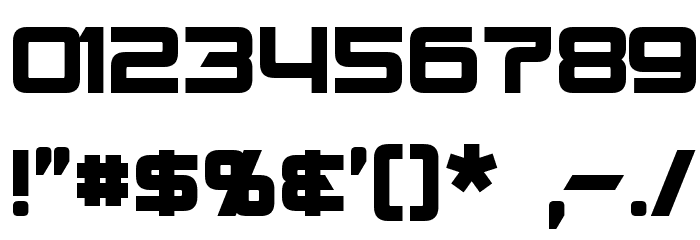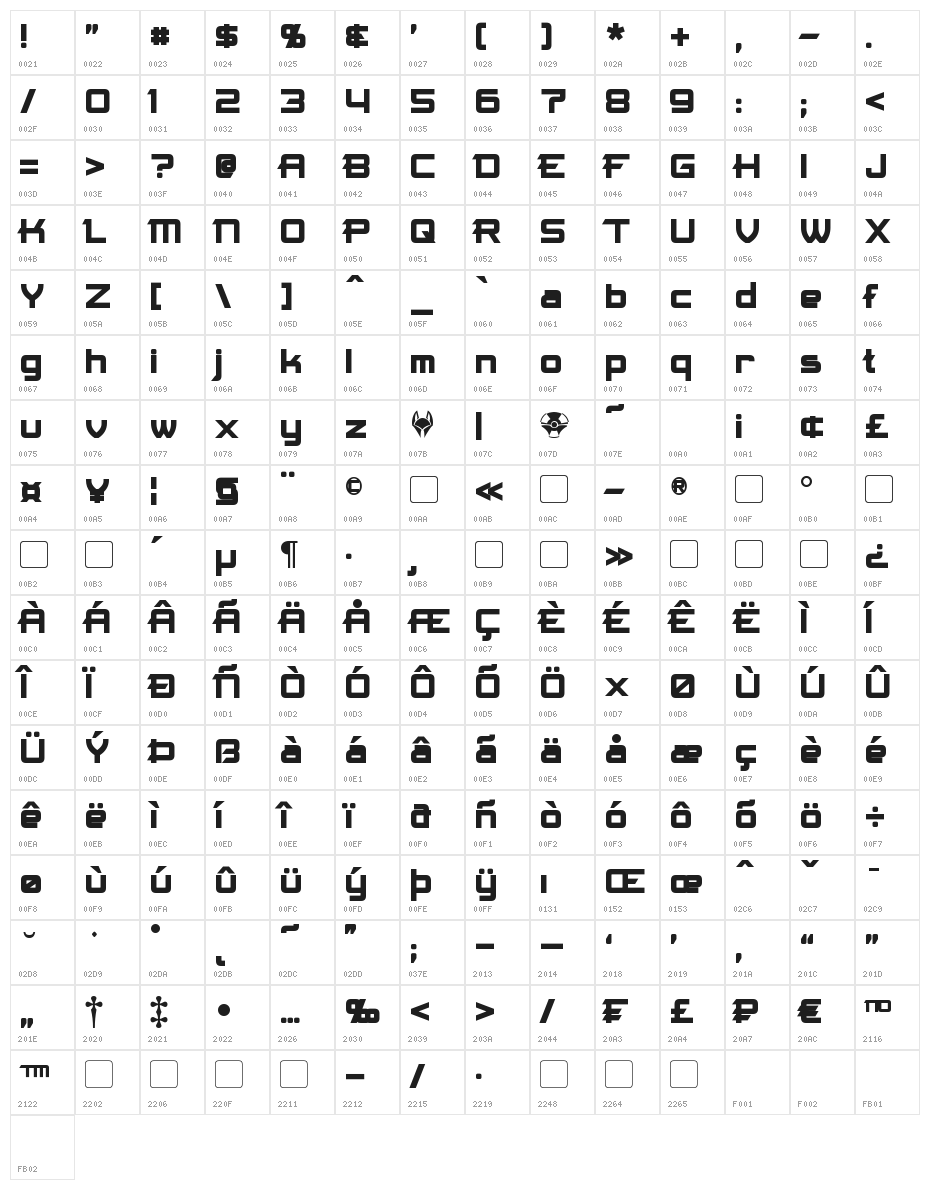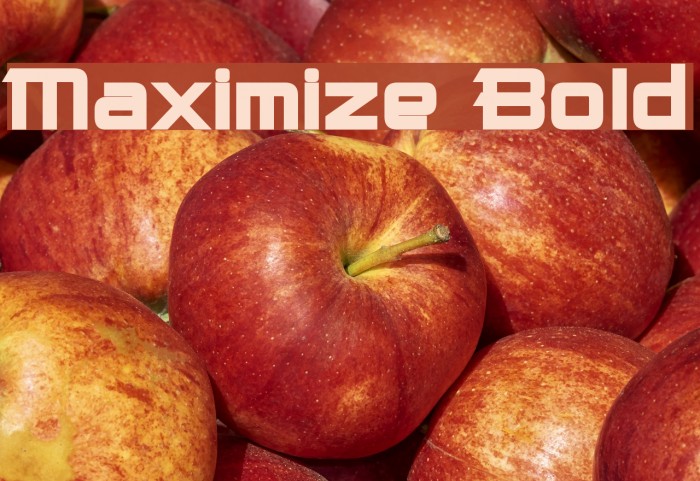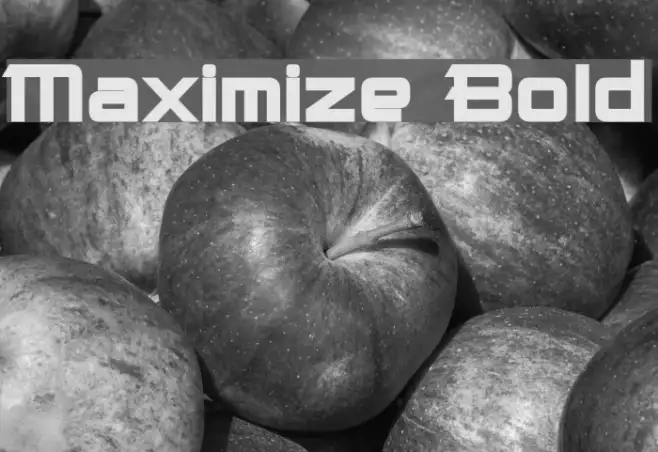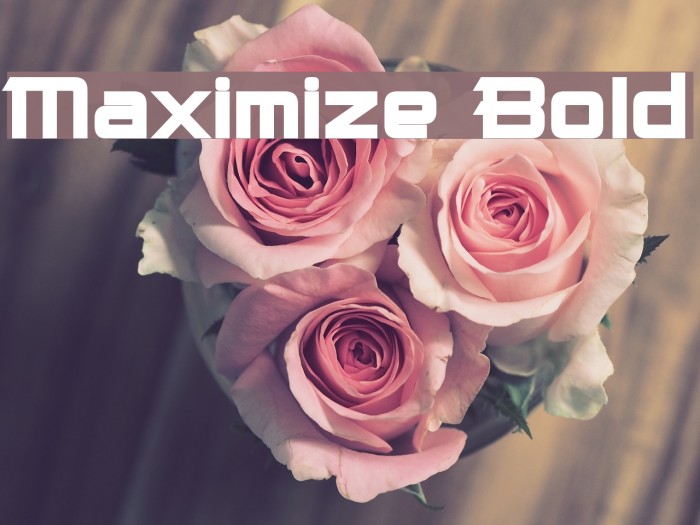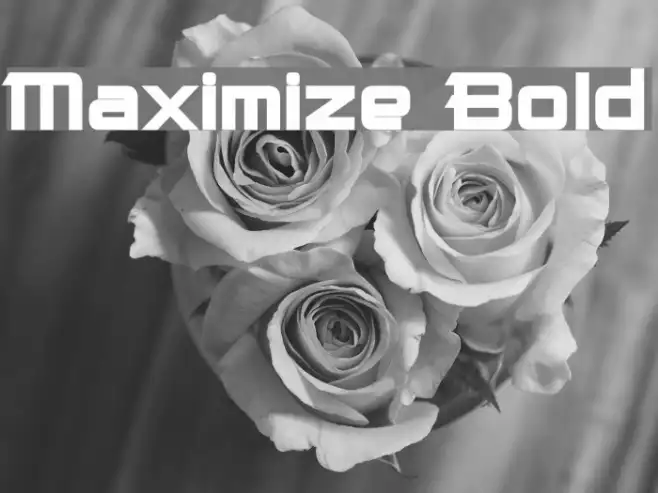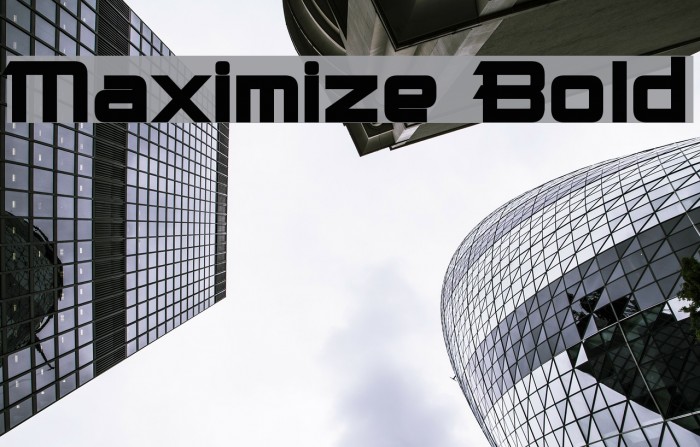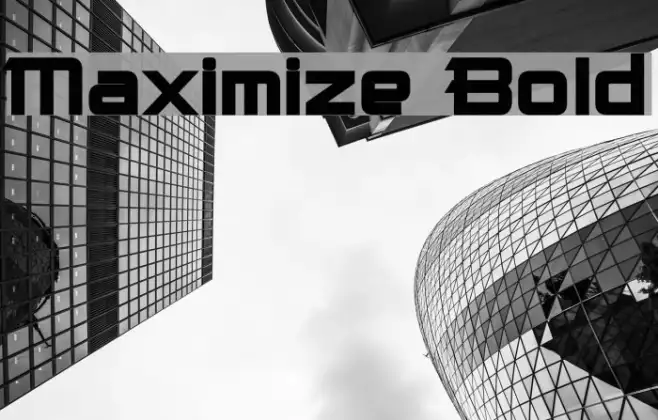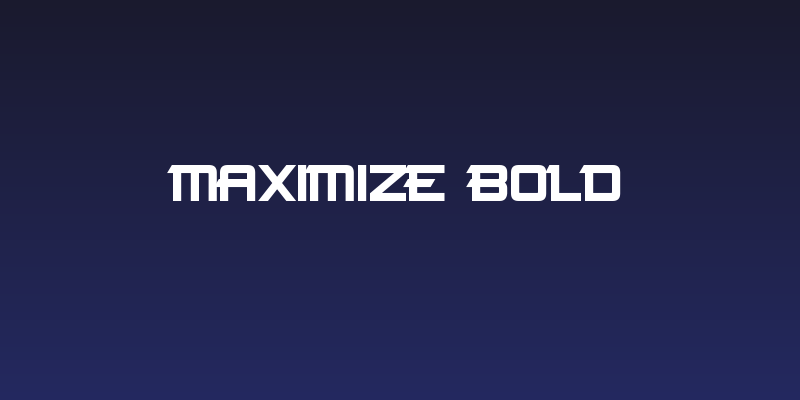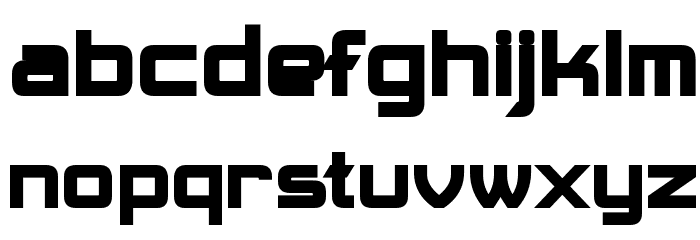
Maximize Bold Font
Maximize Bold Description
This font features a bold, geometric style with strong, angular lines and a modern aesthetic. The uppercase letters are uniform in height and width, creating a cohesive and structured appearance. The lowercase letters maintain the boldness, with some characters like 'g' and 'j' having distinctive tails that add a touch of uniqueness. The numerals are equally bold and geometric, ensuring readability and consistency across different uses. Special characters are designed to match the overall bold and angular theme, making them suitable for attention-grabbing headlines or logos. The font's strong presence and clear legibility make it ideal for modern design projects.